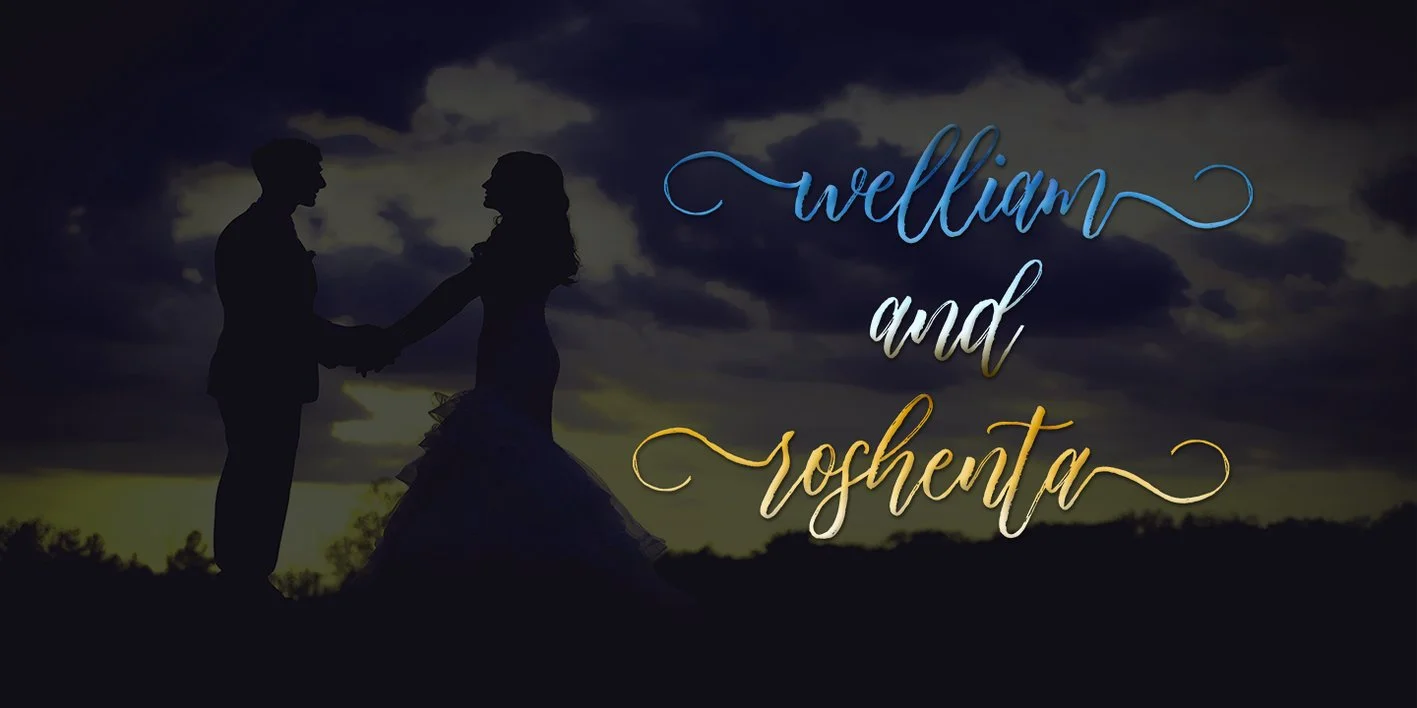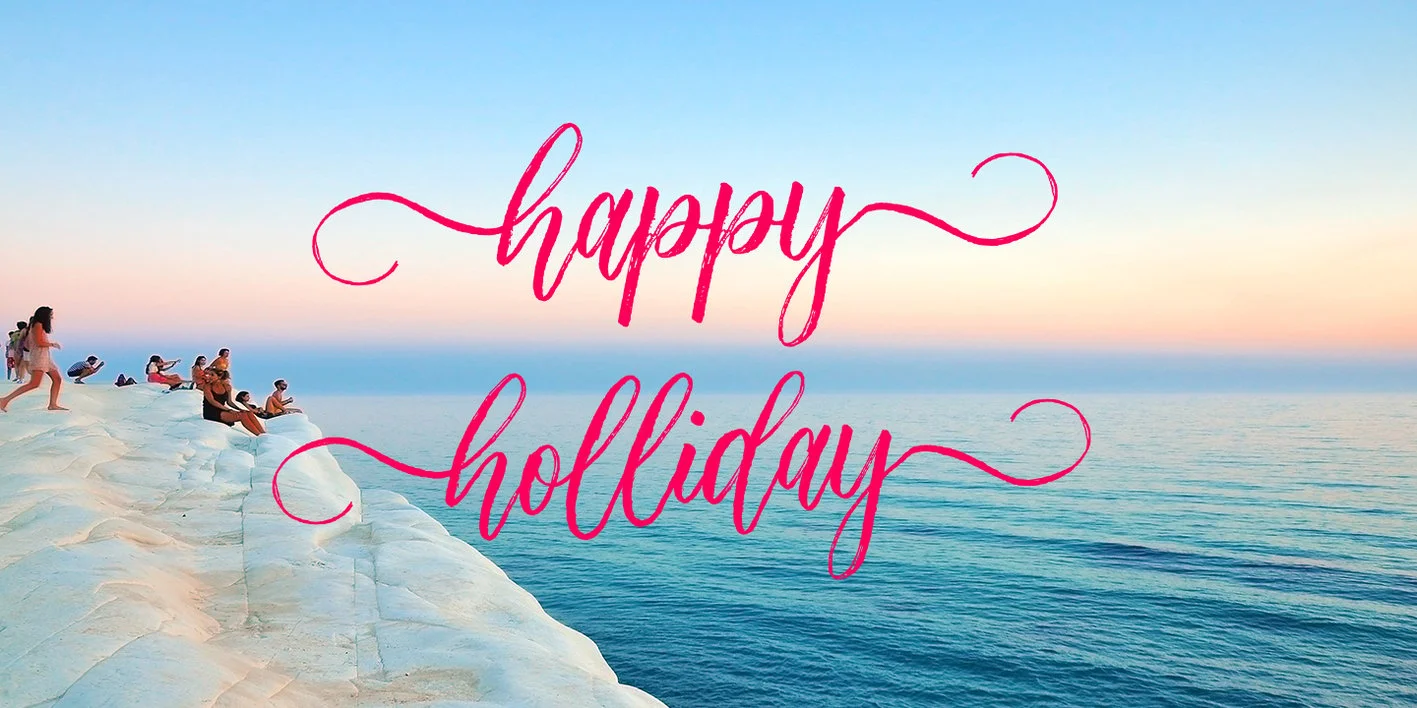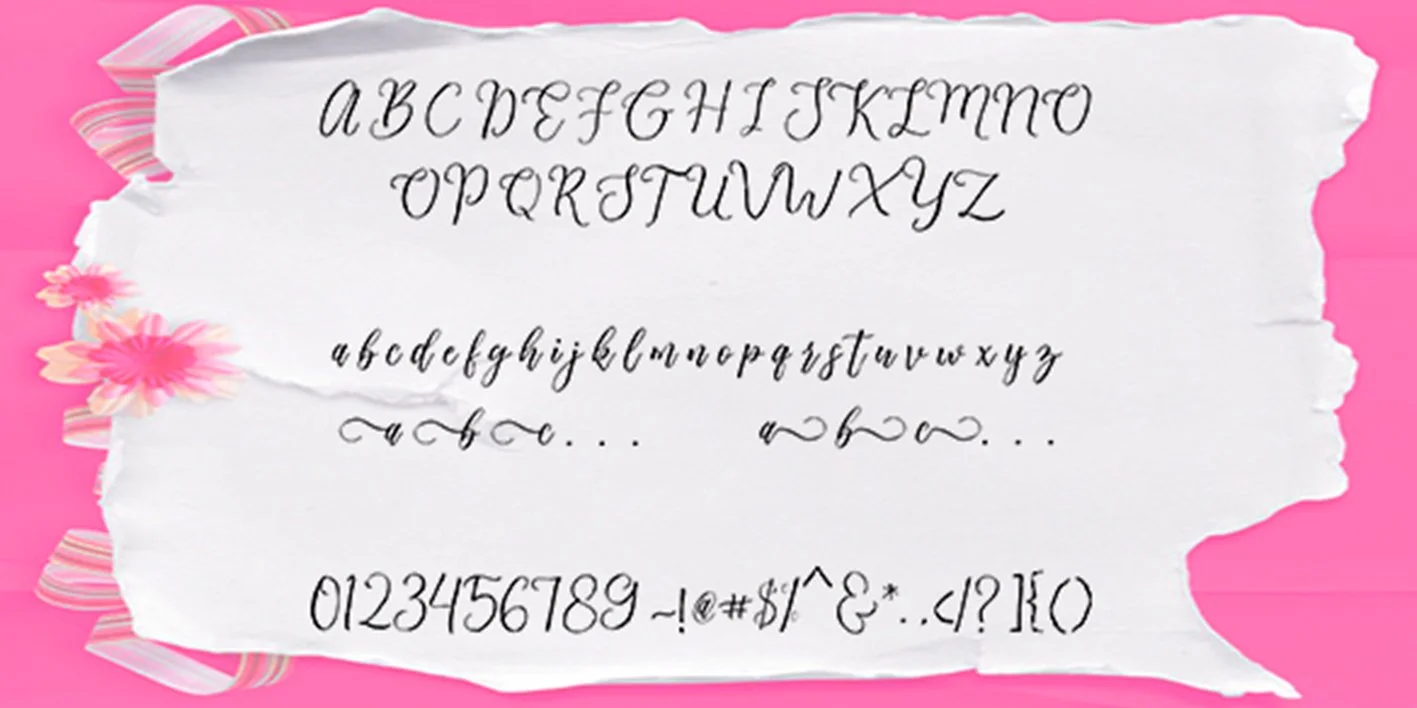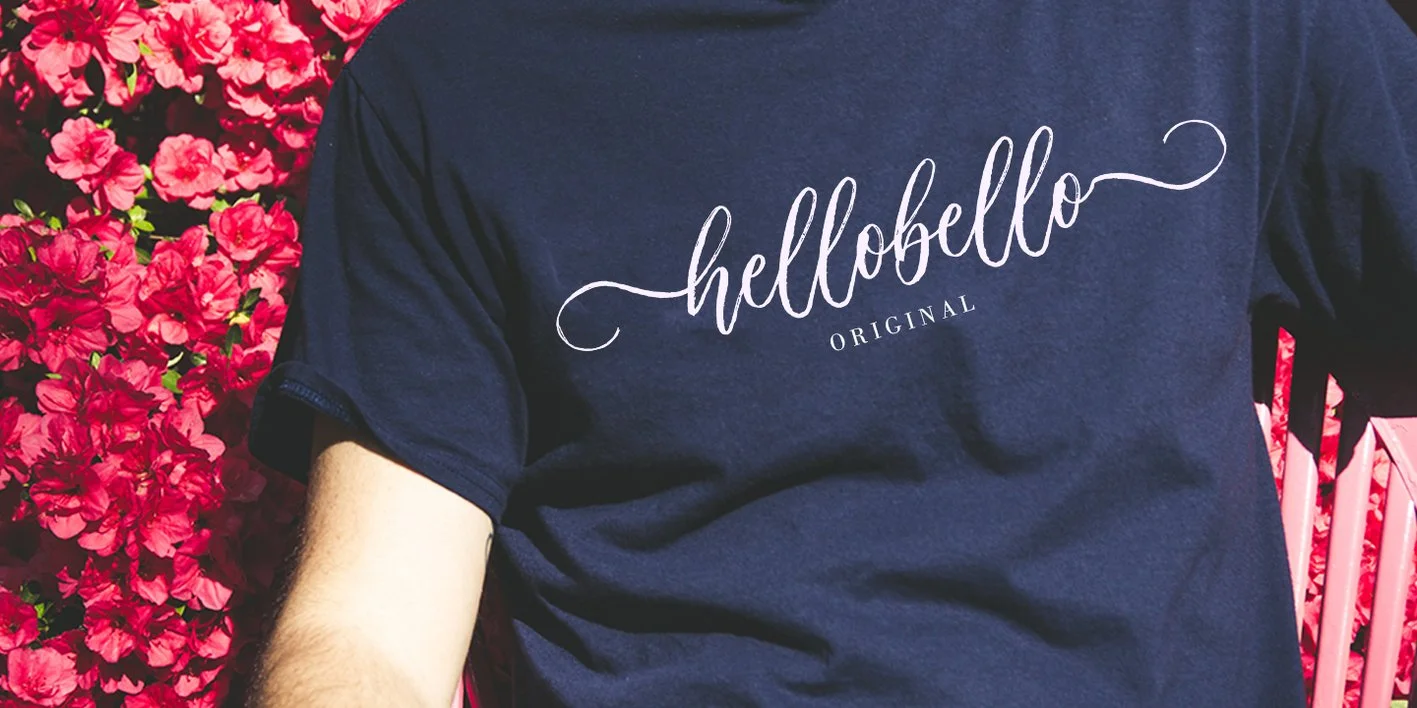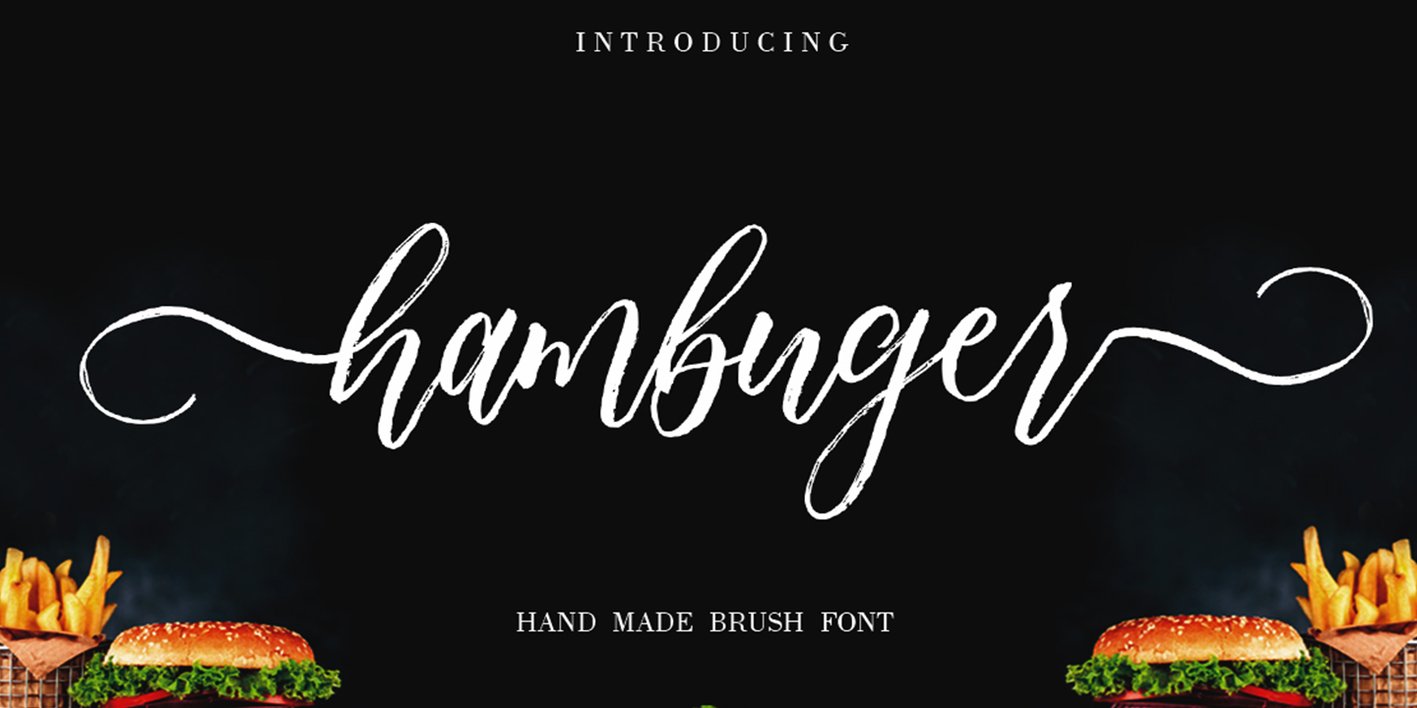
Hambuger Script Font
Hamburger Script Font
Hamburger Script Font is perfect for burger restaurant branding, food truck signage, grill house menus, American diner decorations, fast-casual dining promotions, BBQ joint advertising, comfort food delivery services, burger festival posters, casual dining chain materials, and hearty appetite marketing campaigns. This appetizing typeface brings juicy flavor and comfort food satisfaction to any burger-focused design project.
Hamburger Script Font is exciting because it captures the mouth-watering appeal and satisfying comfort of America's favorite sandwich, featuring bold script letterforms that evoke the sizzling grill, stacked ingredients, and the pure satisfaction that comes from biting into a perfectly crafted burger. Its hearty character instantly triggers appetite and conveys the generous portions and comfort food experience.
Hamburger Script Font family includes Regular and Bold weights with grill-inspired alternates, sizzling flourishes, burger-themed ornamental elements, and appetite symbols that enhance the comfort food aesthetic, providing food designers with delicious tools for creating typography that makes viewers crave juicy burgers and satisfying comfort meals.
Hamburger Script Font offers restaurant professionals access to one of the most authentically appetizing typefaces available for burger design applications. This exceptional font has gained recognition among burger joints, food trucks, and casual dining establishments for its ability to communicate comfort food satisfaction and hearty appetite appeal through typography that embodies the all-American burger experience.
Food service designers love Hamburger Script Font for its exceptional ability to evoke burger cravings and create immediate associations with comfort food through carefully crafted letterforms. The font's hearty character and food-focused details create instant connections with grilling traditions, family dining, and the satisfying comfort that makes burgers America's most beloved casual dining experience.
The design inspiration behind Hamburger Script Font draws from classic American diners, backyard grilling culture, and the rich tradition of comfort food that brings families and friends together over satisfying meals, making it particularly effective for restaurants, food services, and casual dining brands seeking to establish authentic connections with comfort food traditions. Culinary teams working on burger concepts find this font essential.
Whether used for burger restaurants, food truck businesses, or comfort food marketing campaigns, Hamburger Script Font delivers the perfect combination of appetite appeal and comfort food authenticity. Its burger-focused charm and hearty satisfaction make it an indispensable choice for food brands that celebrate the juicy deliciousness, generous portions, and satisfying comfort of perfectly crafted hamburger experiences.